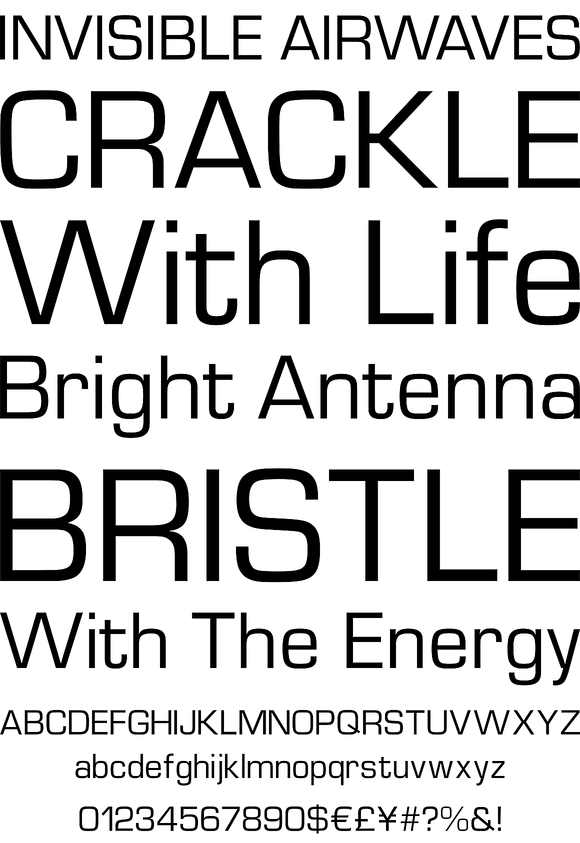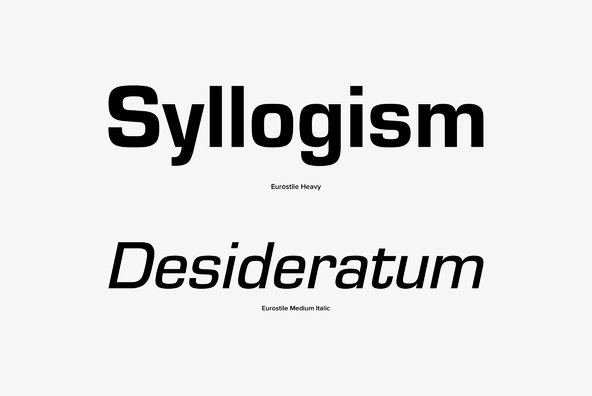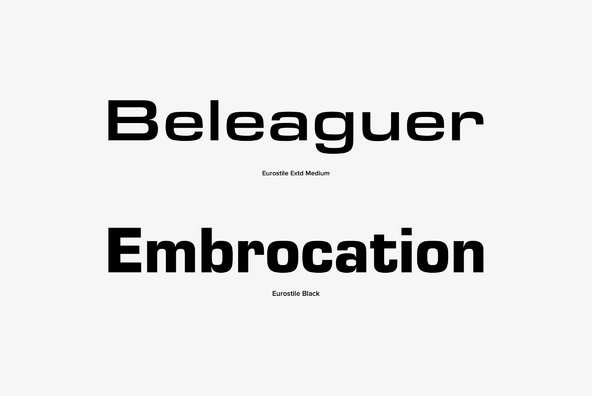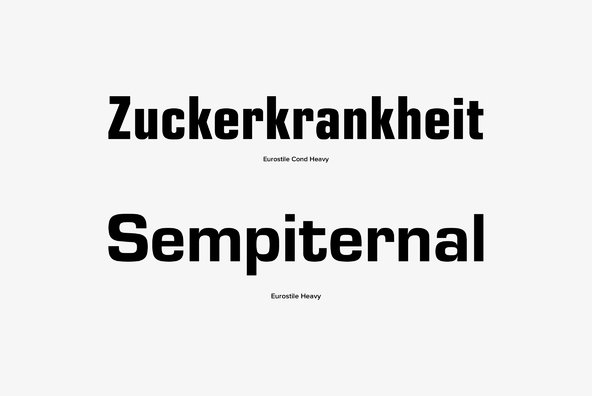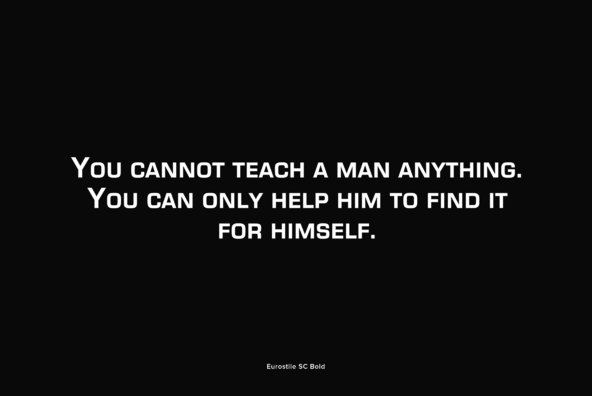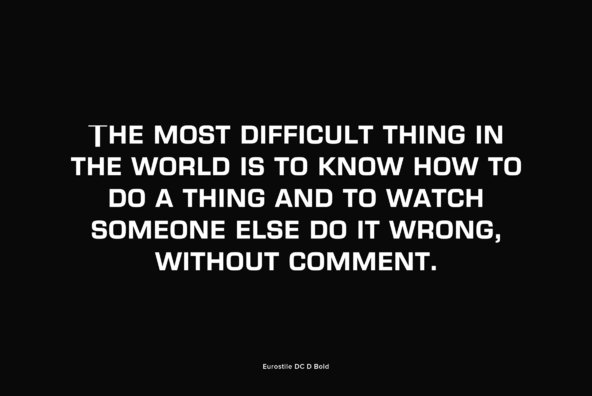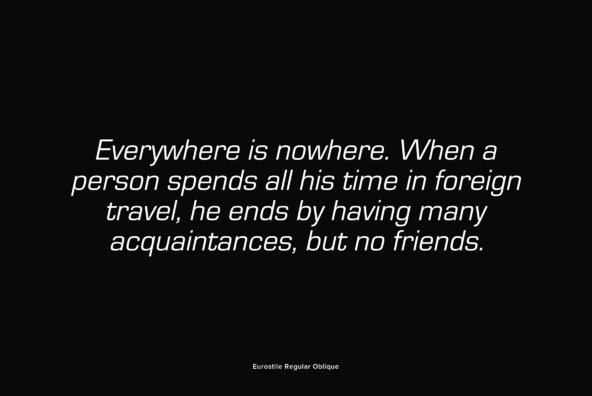
Eurostile is a geometric sans-serif typeface designed by Aldo Novarese in 1962.
Eurostile is a geometric sans-serif typeface designed by Aldo Novarese in 1962. Novarese originally made Eurostile for one of the best-known Italian foundries, Nebiolo, in Turin. Novarese developed Eurostile because although the similar Microgramma, which he had also designed, came with a variety of weights, it had only upper-case letters. A decade after he had designed Microgramma, Novarese remedied this flaw with his design of Eurostile, which added lower-case letters, a bold condensed variant, and an ultra narrow design he called Eurostile Compact, for a total of seven fonts.
Eurostile is a popular display font. Its linear nature suggests modern architecture, with an appeal both technical and functional. The squarish shapes with their rounded corners evoke the appearance of television screens of the 1950s and 1960s. As such, it has found some popularity in contemporary graphic design, as well as in science fiction novel and film artwork.
This version of Eurostile was released by URW Studio in 2000.